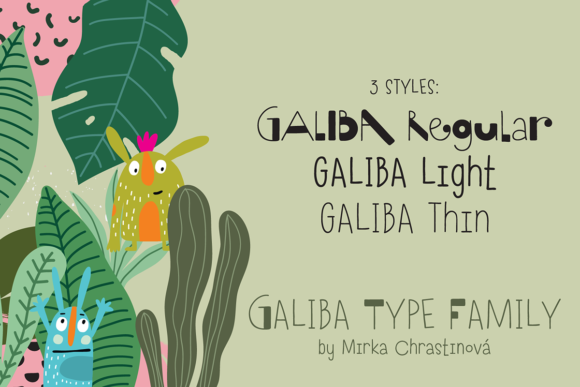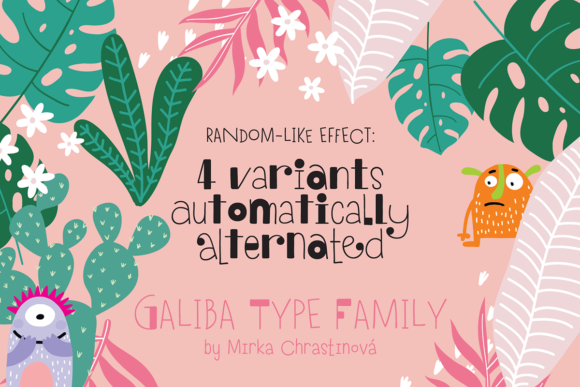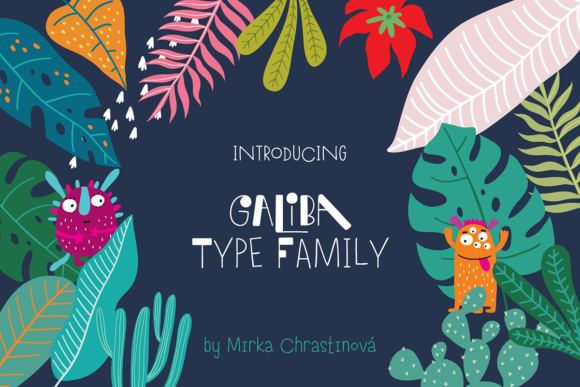
Introduction to Galiba Font
Have you ever stared at a blank canvas, eager to bring your creative vision to life, only to be held back by the perfect font? That’s where the magic of Galiba Font comes in. This hand-crafted display font family, designed by Mirka Chrastinová, is the perfect design resource to elevate your next high-quality project.
Imagine having a versatile font family that adapts seamlessly to your needs, with three styles to choose from and OpenType features that allow for endless customization. From transparent backgrounds to intricate details, Galiba Font is the perfect tool for designers looking to add a unique touch to their creative project.
Whether you’re working on a design that requires a clean and modern look or something more playful and whimsical, Galiba Font is a valuable asset in your design arsenal. With its high-quality design and attention to detail, this font family is sure to take your projects to the next level. And the best part? It’s available for free download, making it an absolute must-have for any serious designer.
Key Features of Galiba Font
- High-quality design for creative projects: The Galiba Font is designed to meet the needs of designers and artists working on high-quality projects.
- Transparent background: This font features a transparent background, making it ideal for use on images with complex backgrounds.
- High-resolution design: The Galiba Font is designed at 300 DPI, making it suitable for use in high-resolution designs and prints.
- Unique characteristics: The font features a unique blend of modern and vintage elements, making it a great choice for designers looking to add some personality to their projects.
- Design resource: The Galiba Font is a valuable addition to any designer’s or artist’s toolkit, providing a versatile and high-quality design resource for creative projects.
Honest Review: Galiba Font
I recently had the chance to work with the Galiba Font, and I must say it’s a unique and interesting design resource. I was drawn to its high quality and versatility, making it perfect for a creative project that requires a bold and distinctive look.
One of the standout features of the Galiba Font is its ability to work well with transparent backgrounds. This makes it a great choice for designs that need to stand out from the background without looking too overpowering. The font also has a wide range of styles and weights, making it easy to customize to suit your specific needs.
- High quality design
- Unique and bold styles
- Works well with transparent backgrounds
- Some users may find the font too bold or overpowering
- Not suitable for designs that require a more subtle look
Overall, I would say that the Galiba Font is a great addition to any designer’s toolkit. While it may have some limitations, its unique features and high quality make it a great choice for creative projects that require a bold and distinctive look.
Introduction to Galiba Font
The Galiba Font is a versatile and high-quality design resource that can elevate any creative project. It’s available for free download, making it an excellent choice for designers and non-designers alike.
Getting the Most Out of Galiba Font
Here are some tips for getting the most out of the Galiba Font: use it for headings and titles to add a touch of elegance, experiment with different font sizes and colors to create visual interest, and combine it with other design elements to create a unique look.
Common Use Cases for Galiba Font
The Galiba Font is ideal for a variety of projects, including: logos, business cards, brochures, and social media graphics. It’s also great for creating eye-catching headings and titles for presentations and documents.